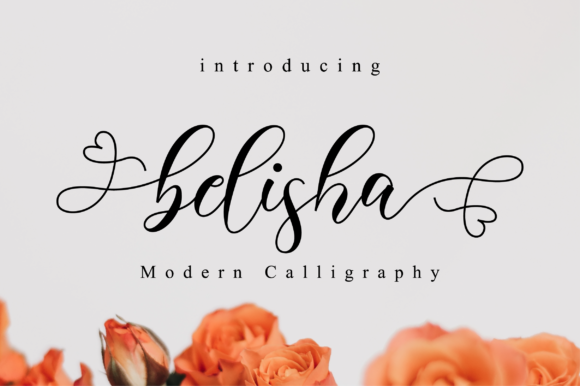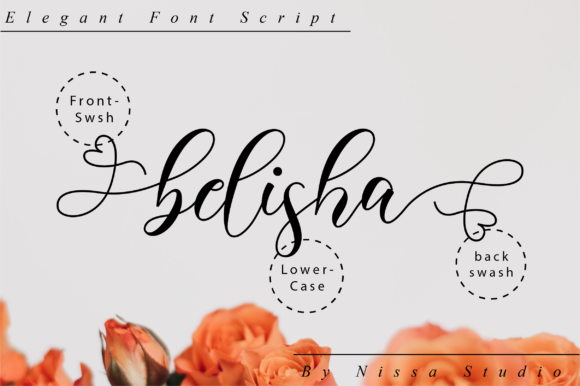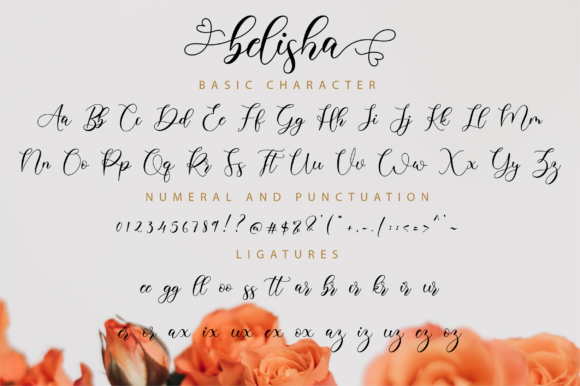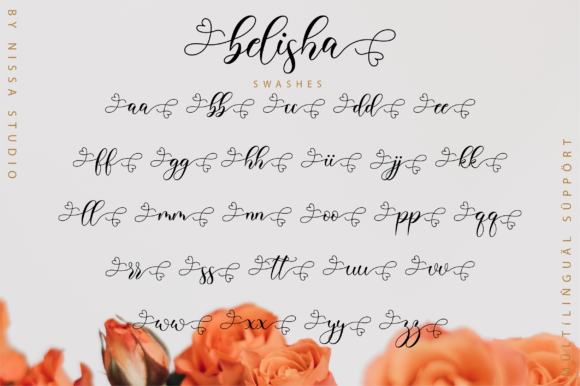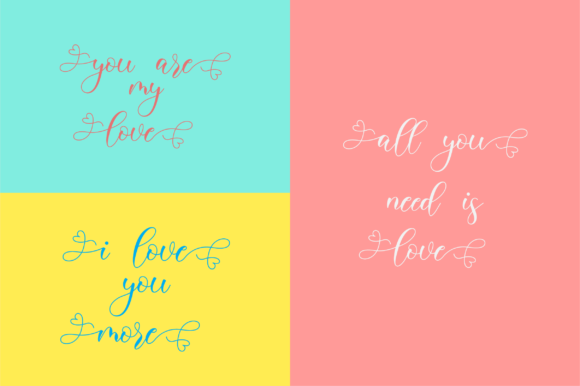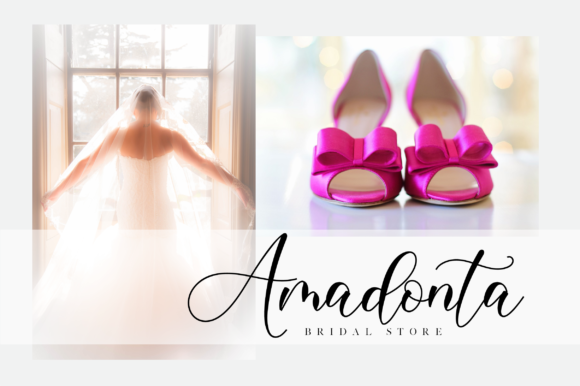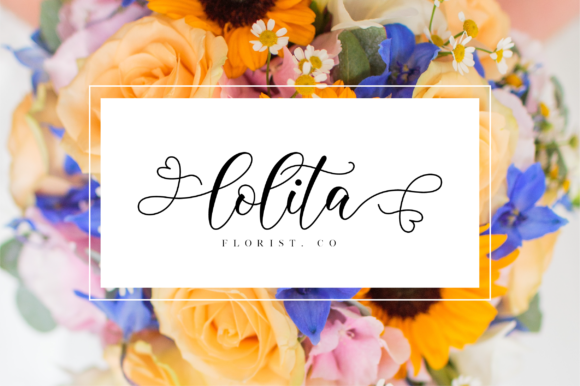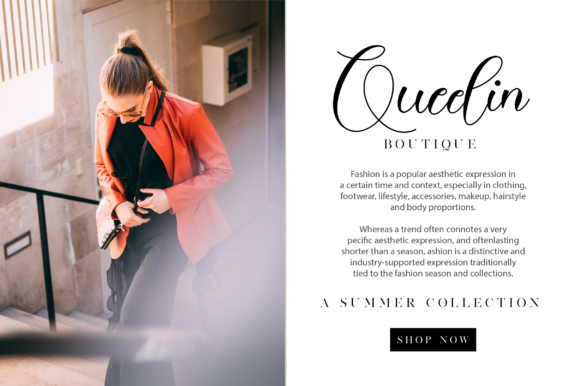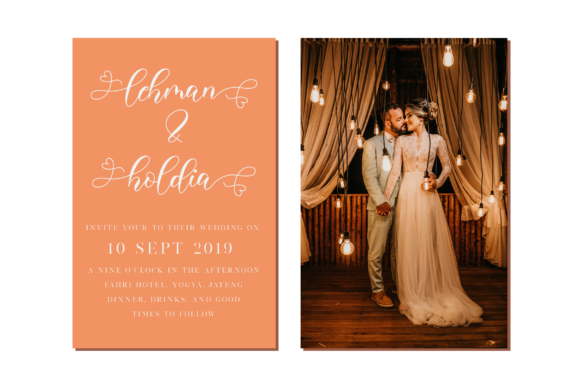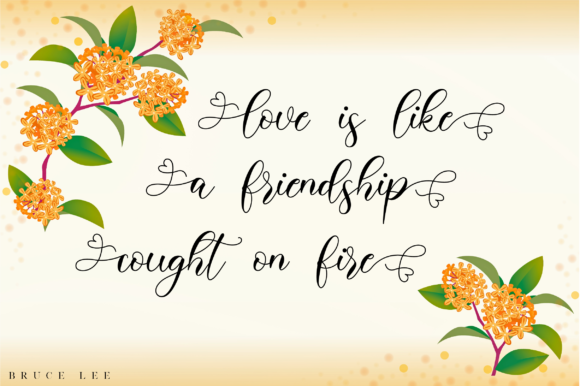
Belisha Font
About Belisha Font
Belisha is a beautiful script with a modern vibe. It has a classy, elegant, and modern look which can be used for logos, branding, invitations, stationary, wedding designs, social media posts, and any other design in need of a handwritten touch.